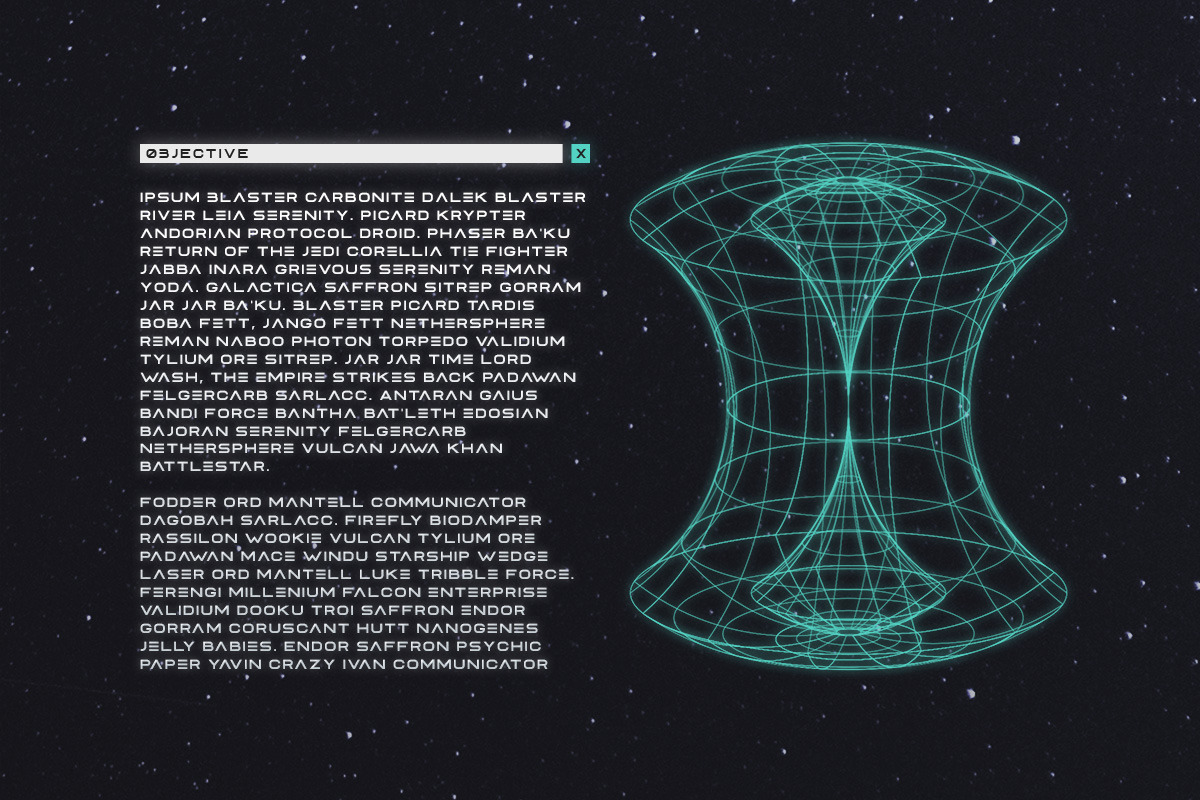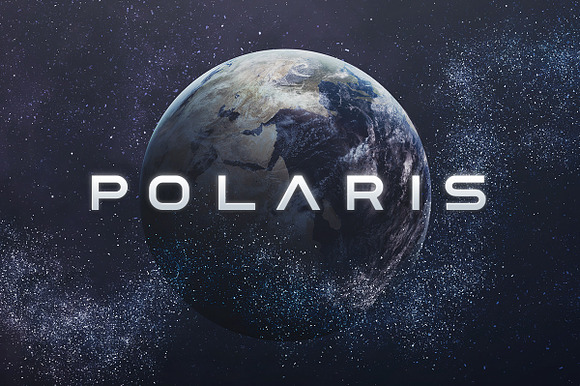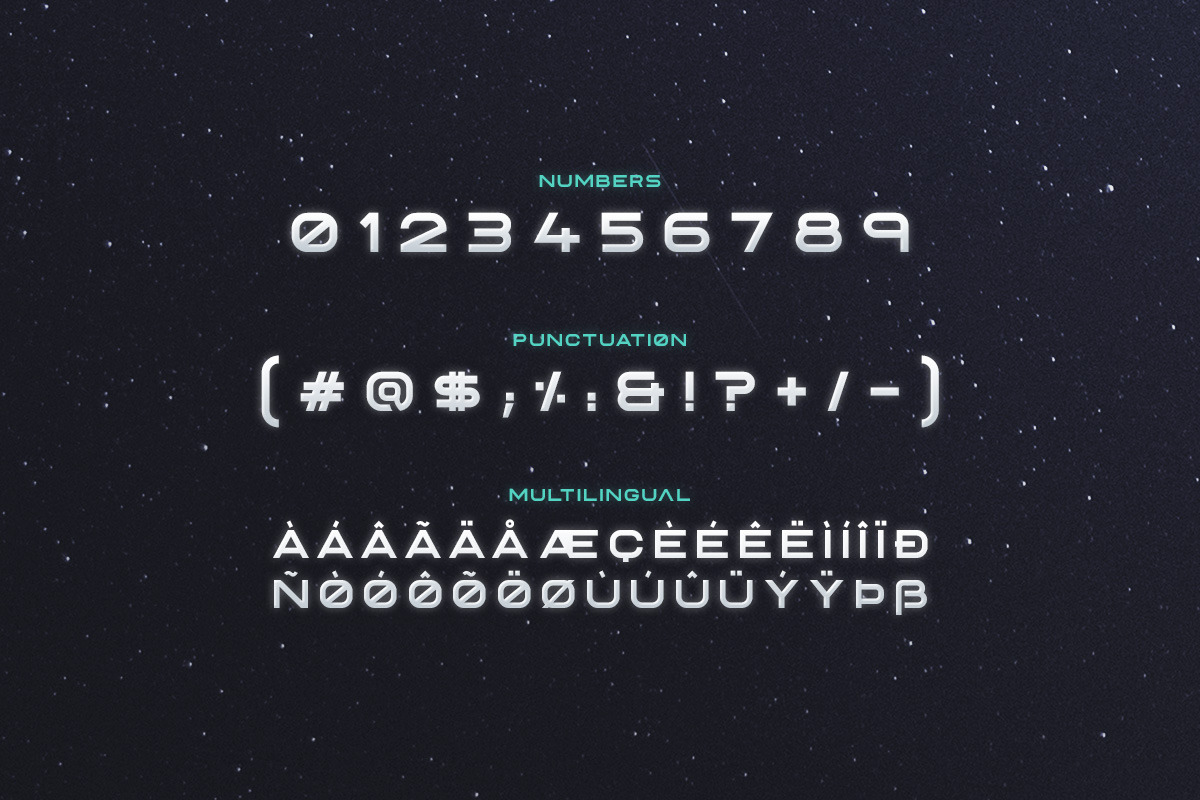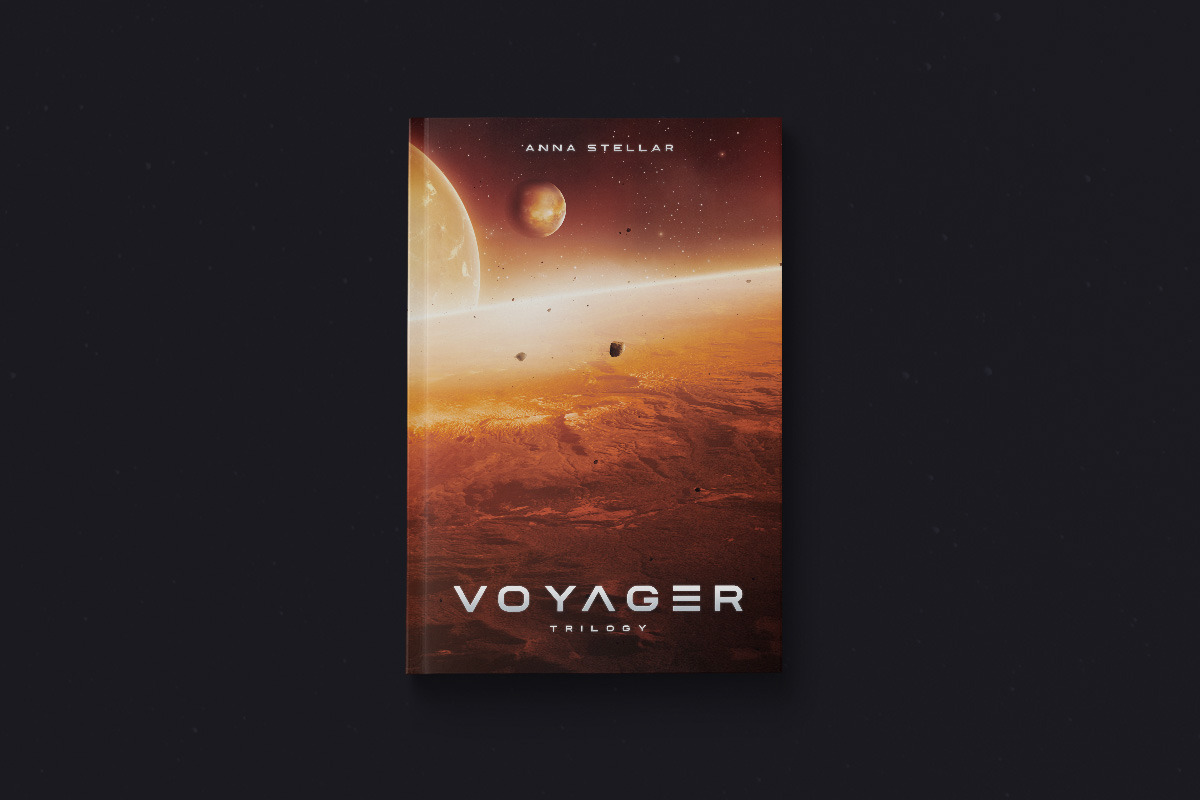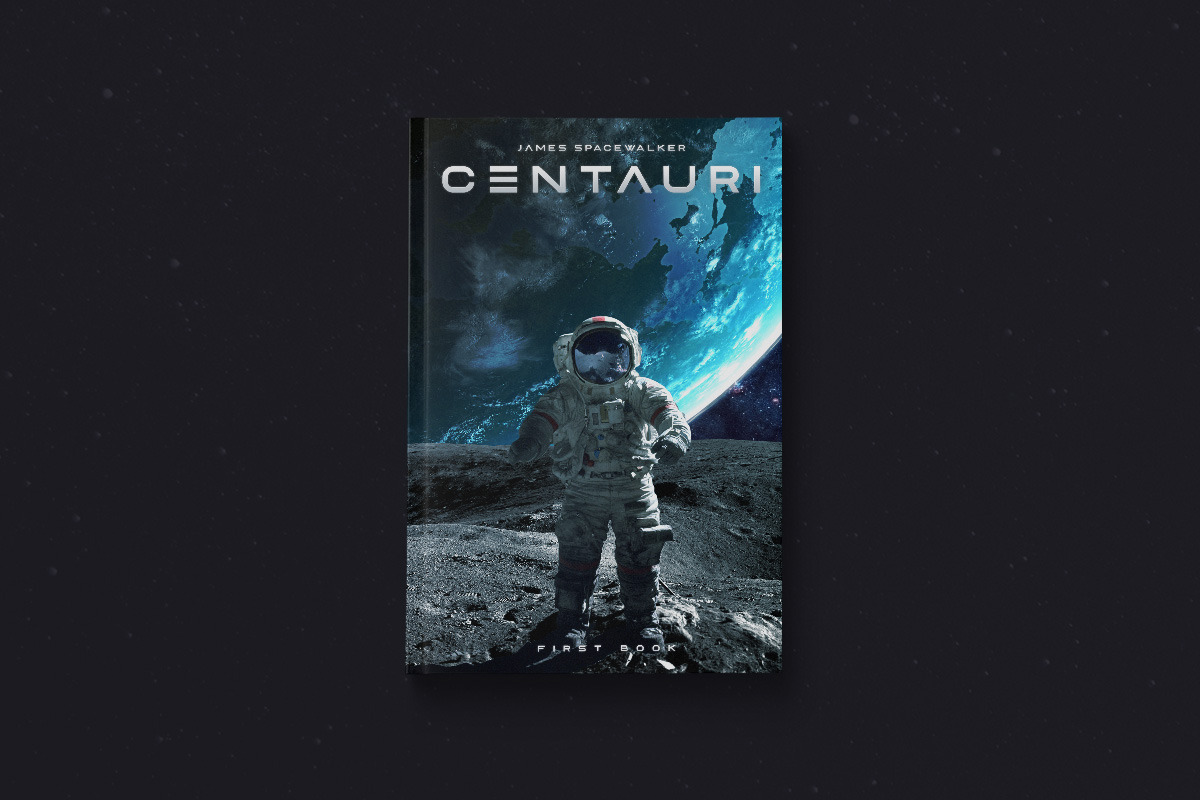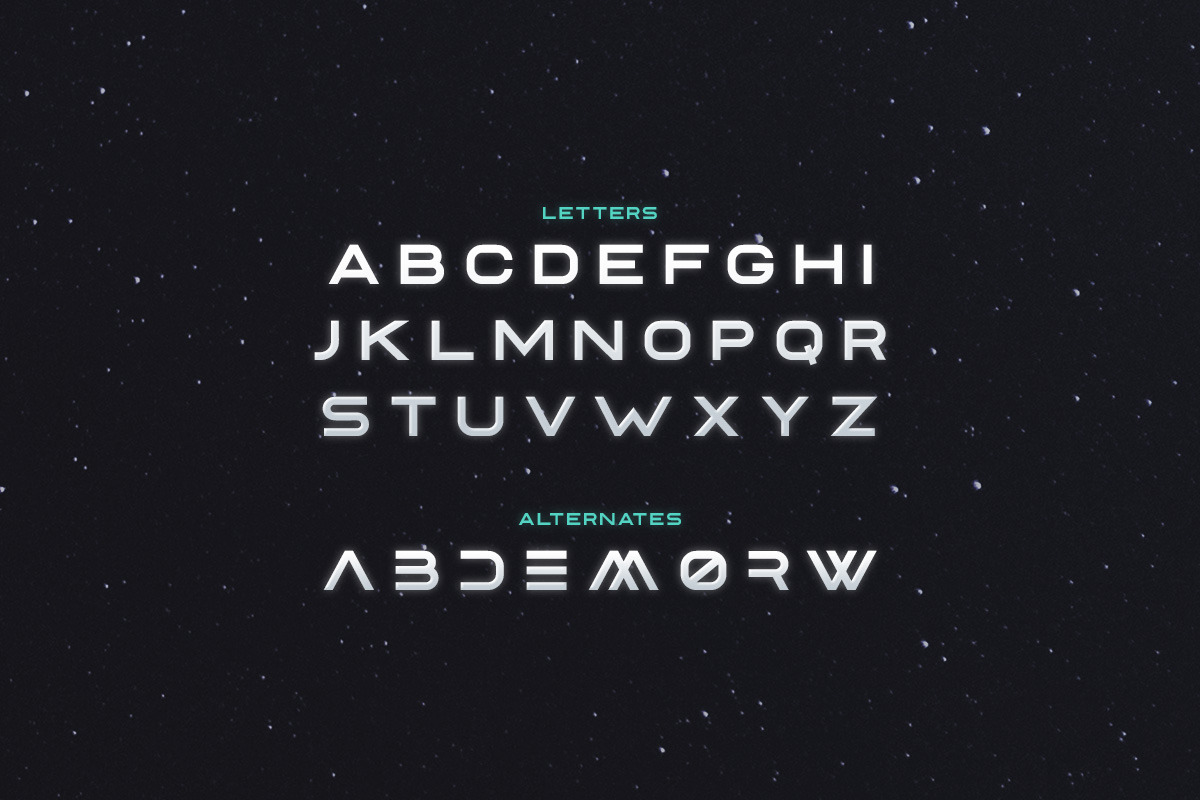
Polaris - Futuristic Font
Polaris is a futuristic font with alternate letters. It includes uppercase multilingual letters, numbers and punctuation.
- It includes uppercase multilingual letters, numbers and punctuation.
- Polaris is a futuristic font with alternate letters.
- It includes uppercase multilingual letters, numbers and punctuation.
Polaris - Futuristic Font by Tugcu Design Co. fits naturally into Branding, posters, packaging, typography.